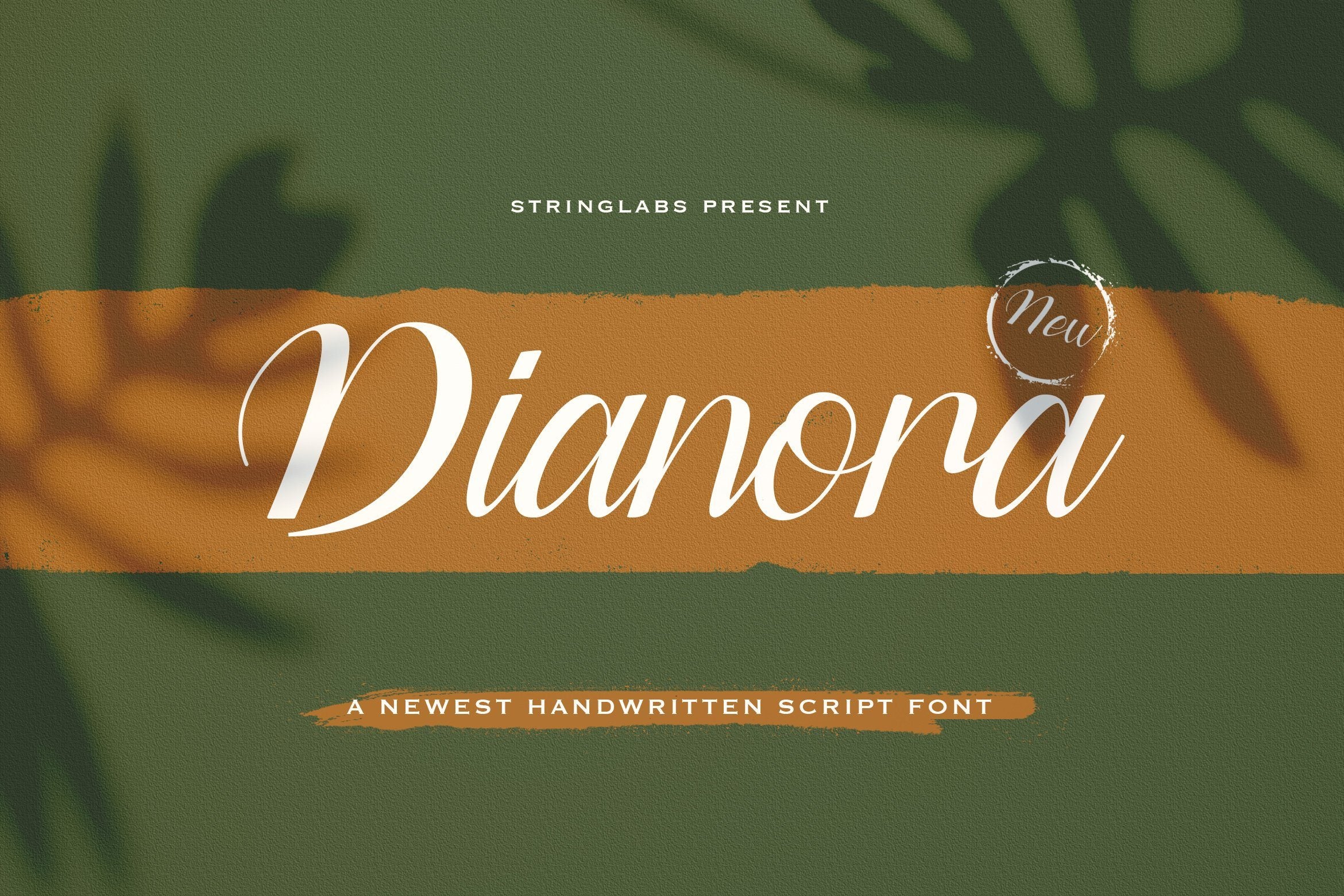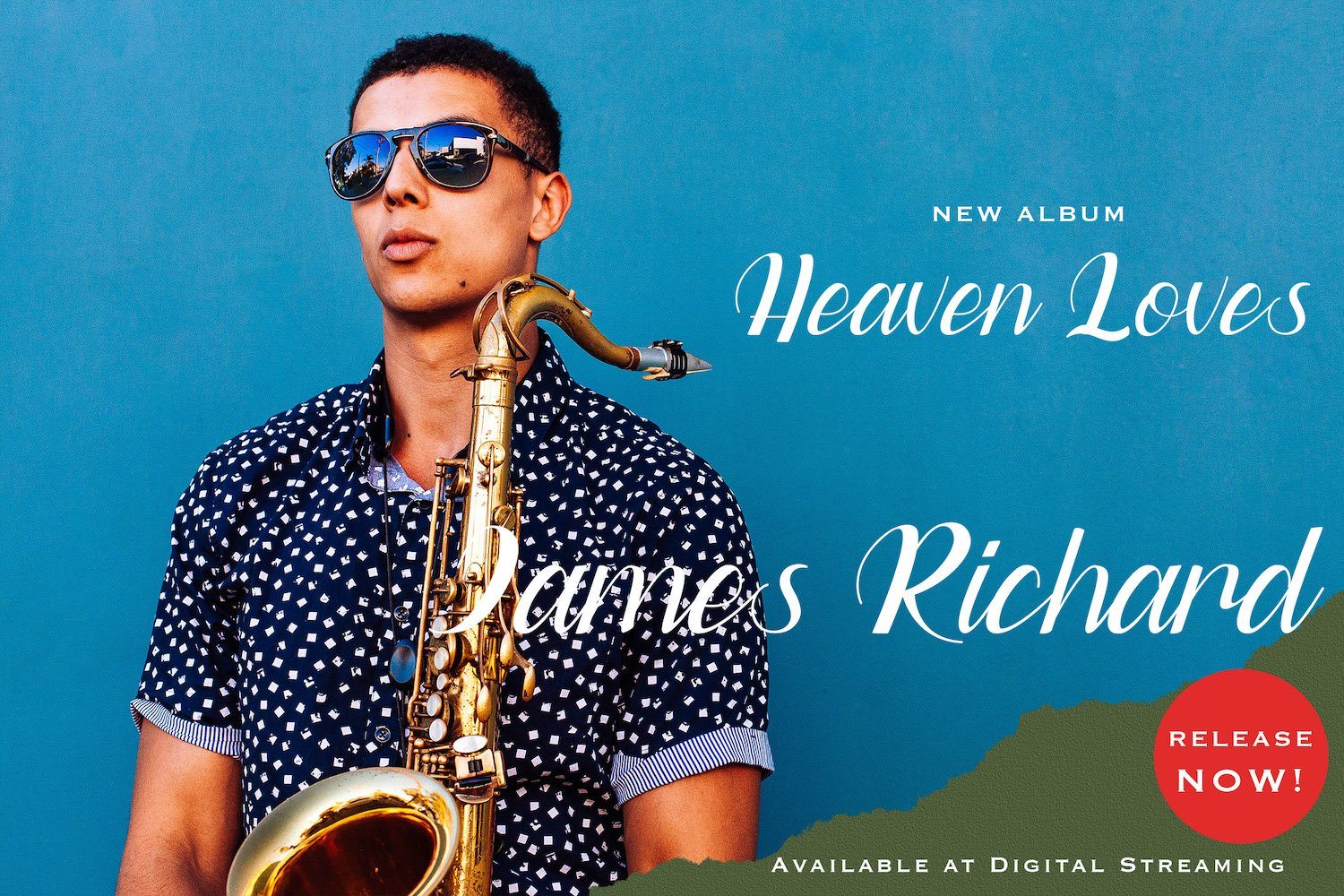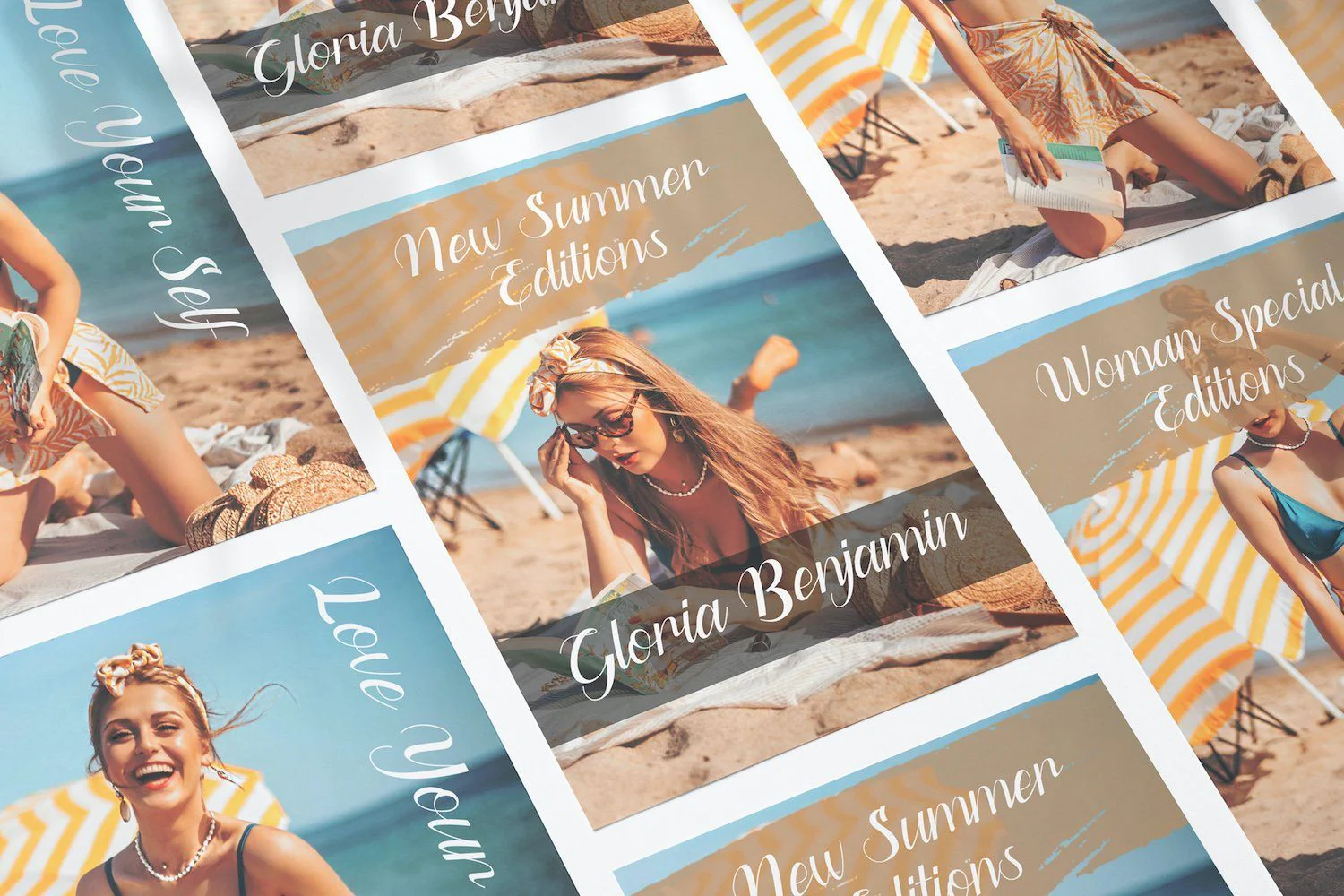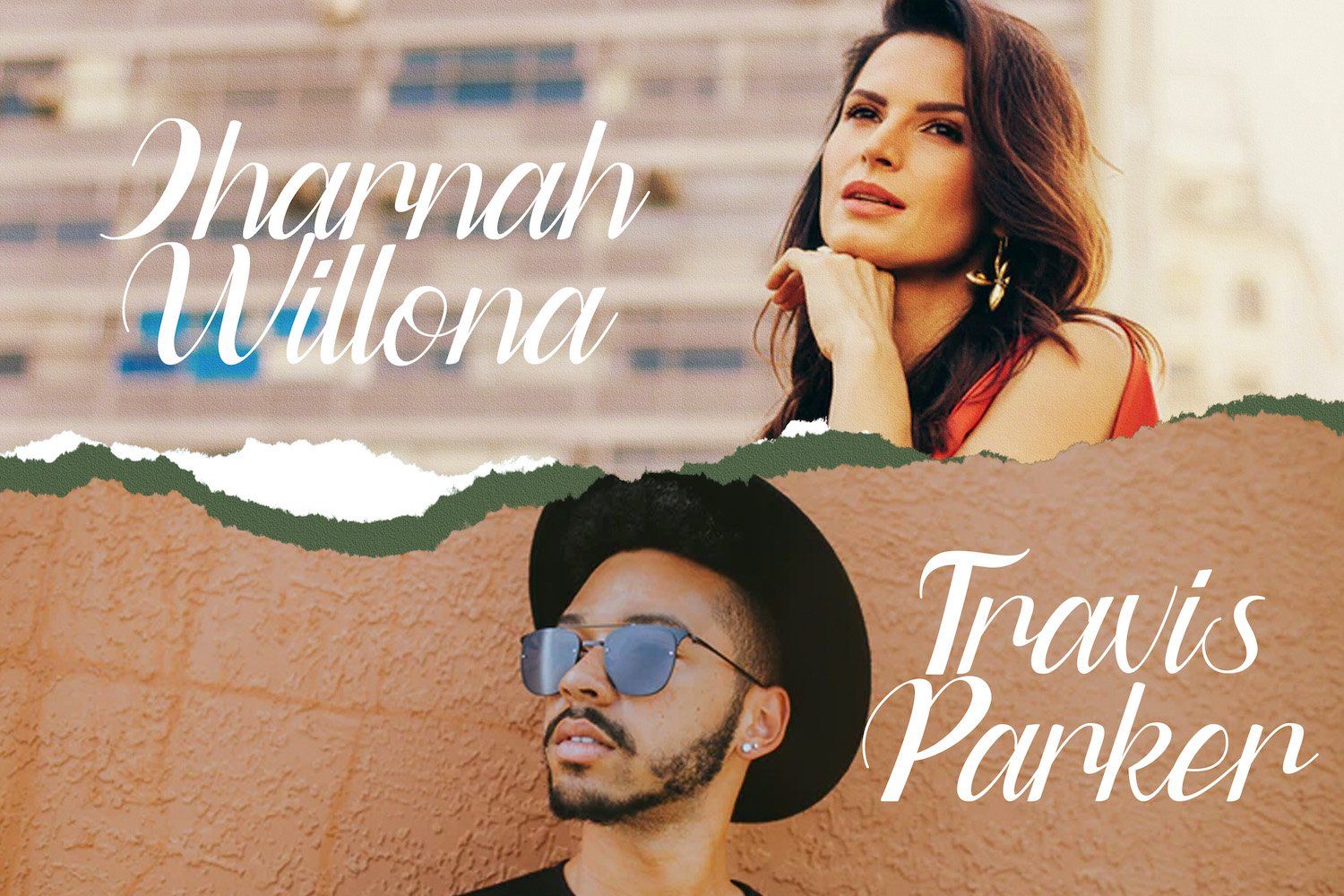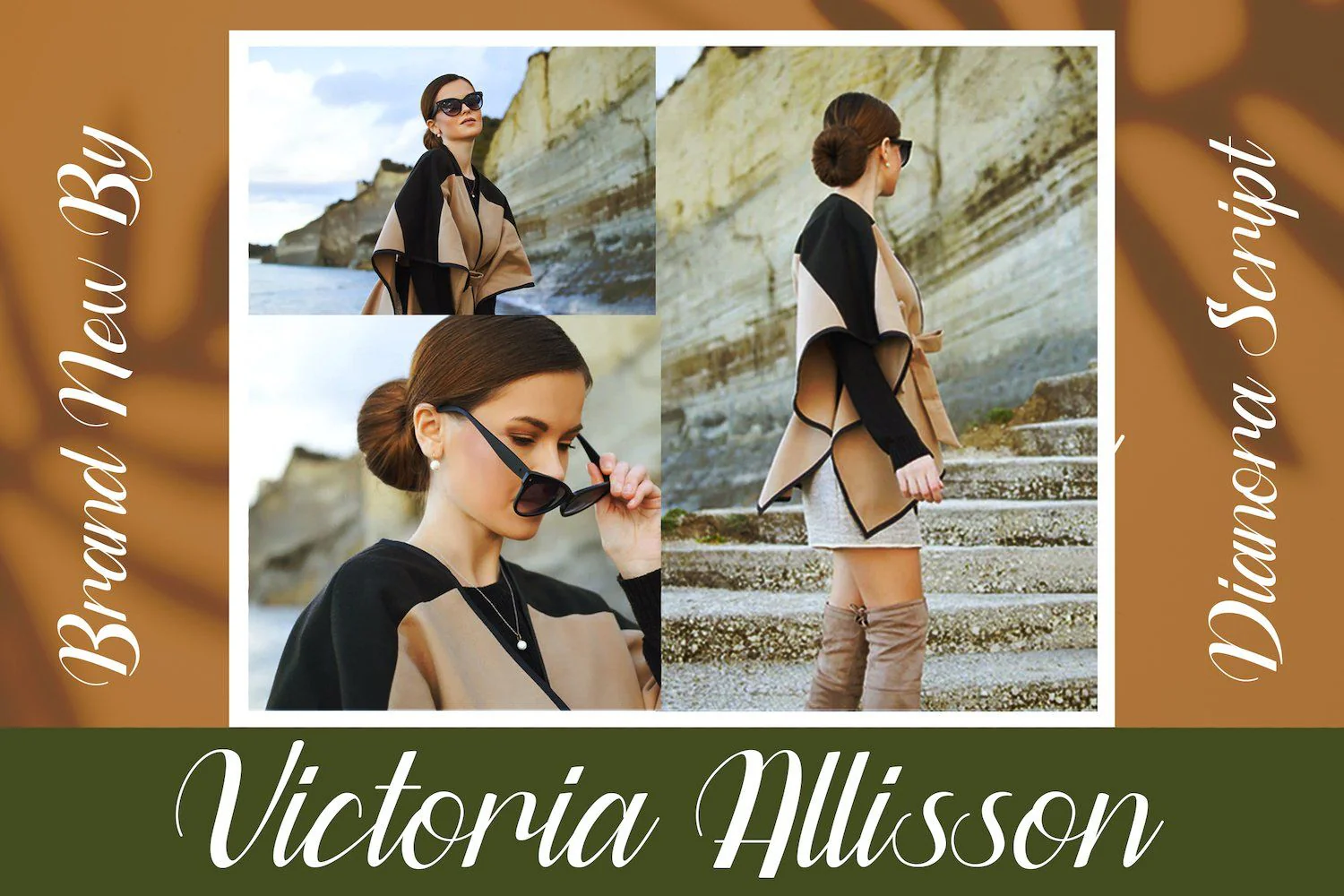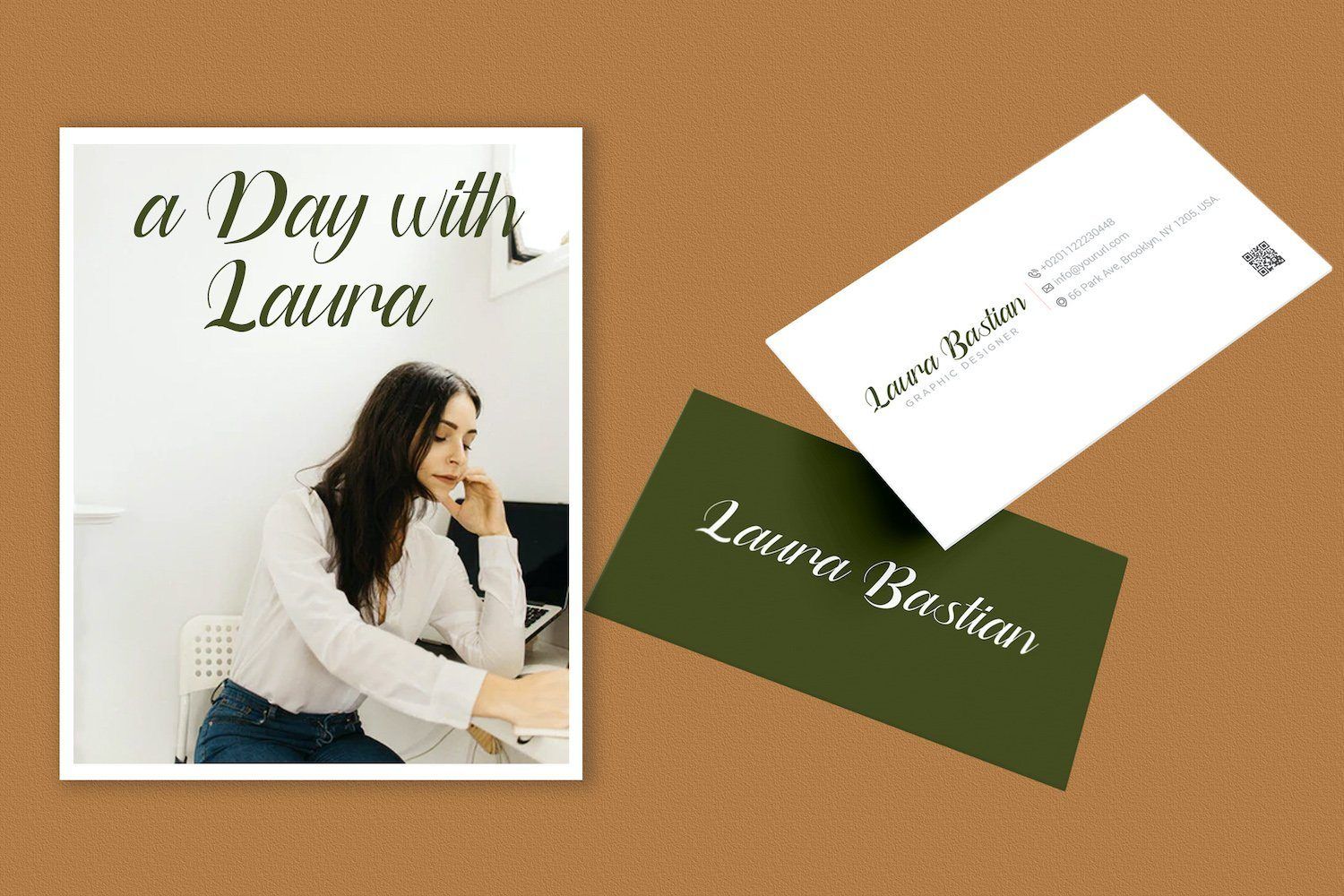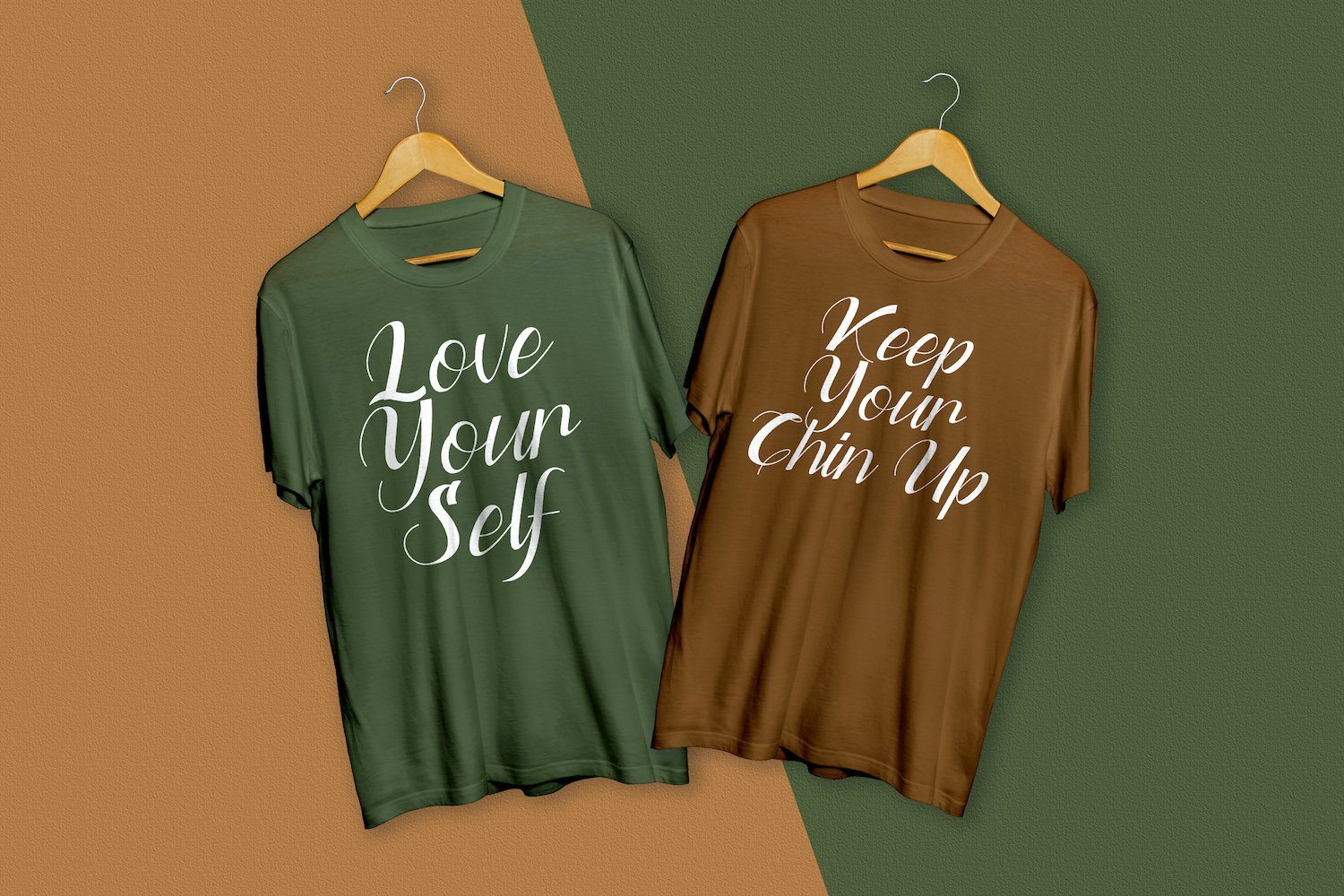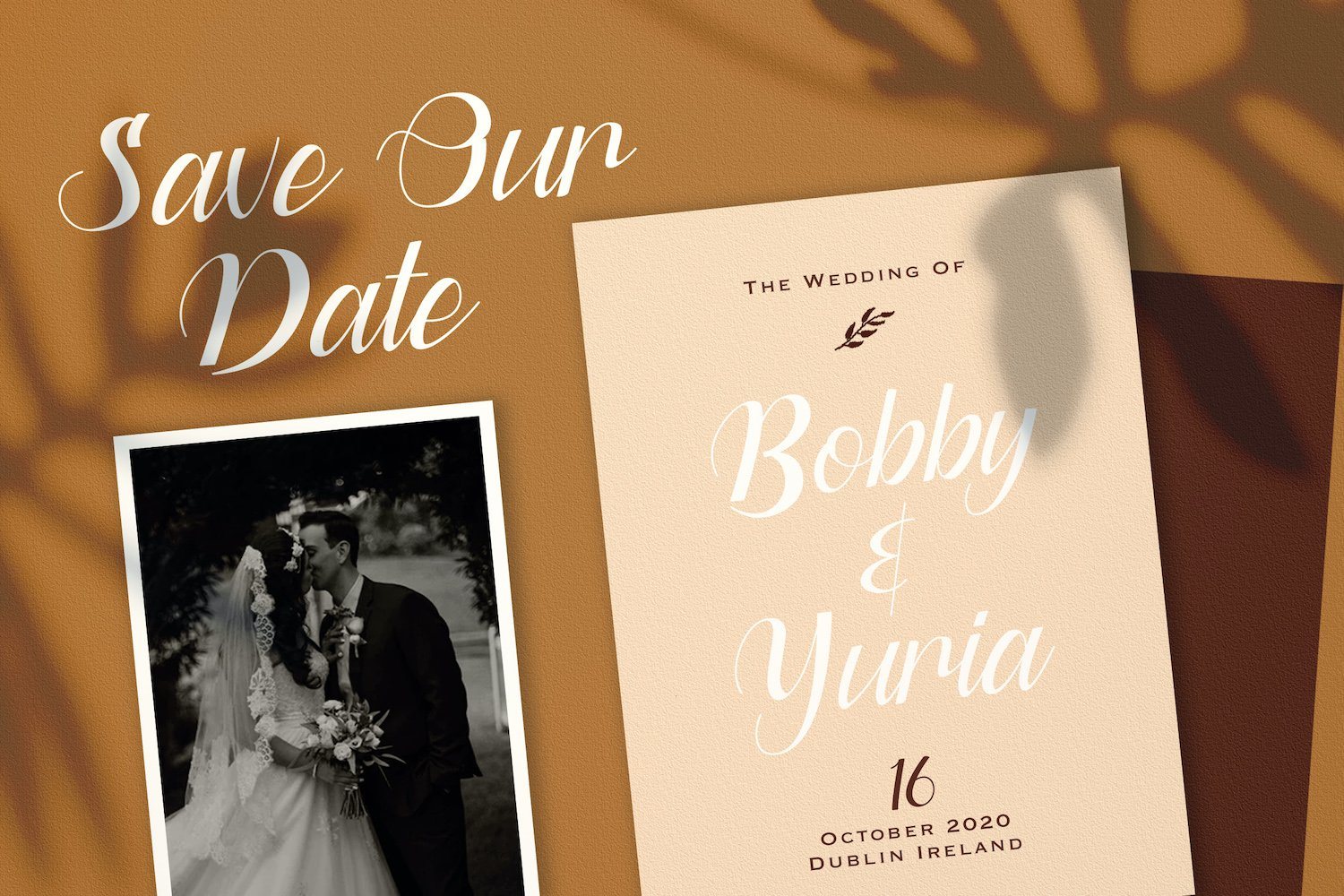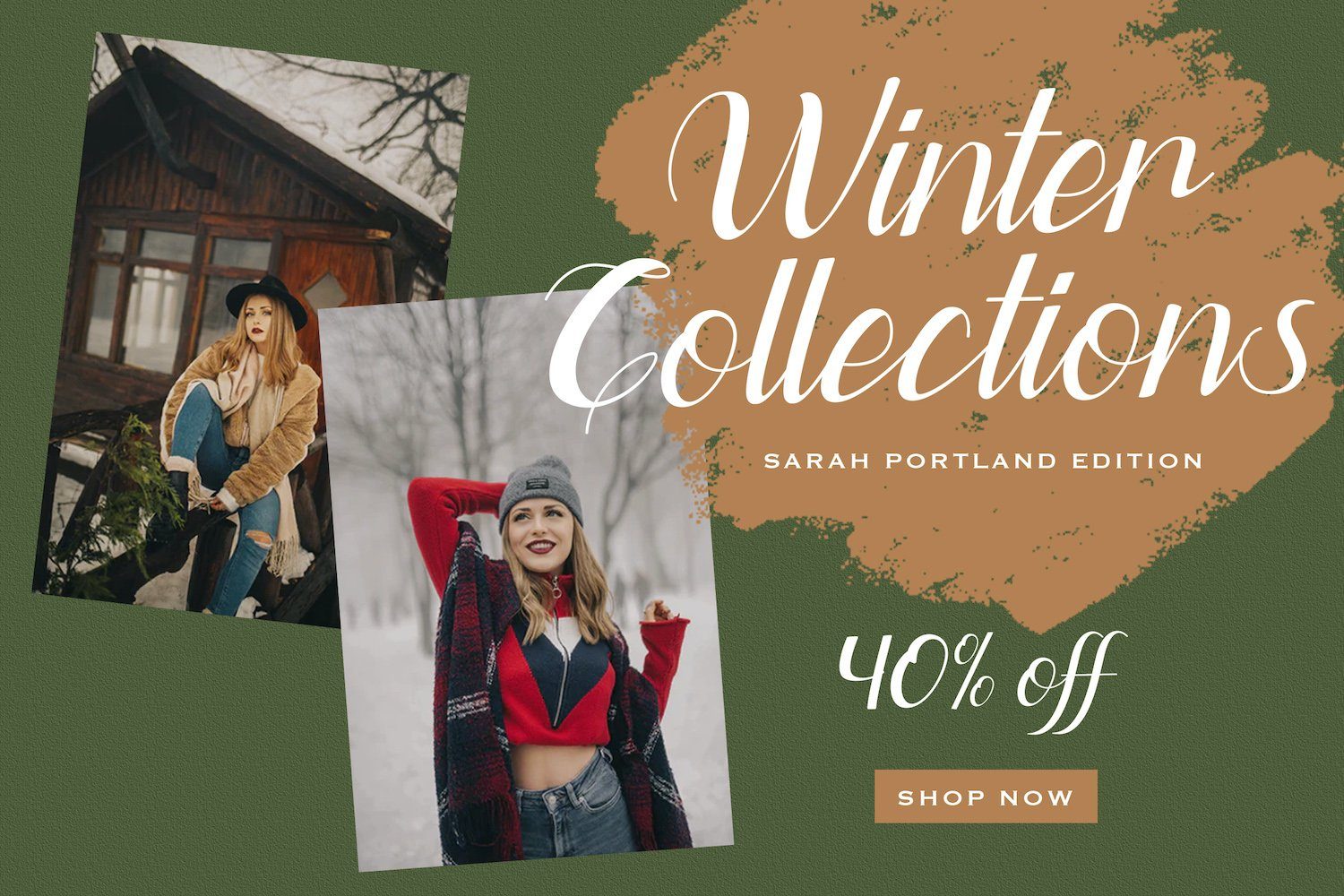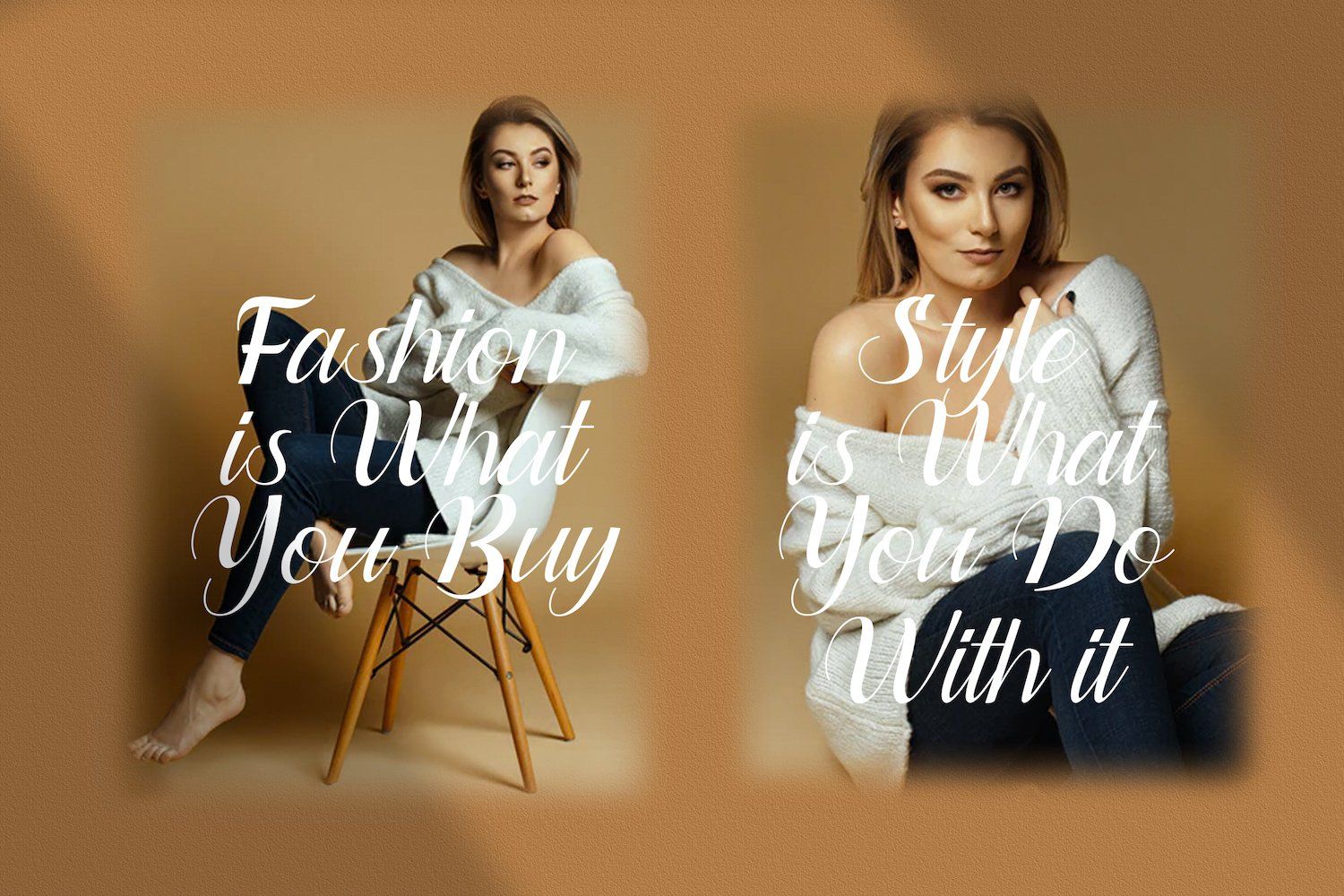
Dianora - Handwritten Script Font
Introducing Dianora - Handwritten Script Font
Dianora is a Script Font with Lovely Handwritten Calligraphy Style. Dianora is an equally elegant and authentic script, full of love. Use it to add a romantic spark to any design project!.
Introducing Dianora - Handwritten Script Font
Dianora is a Script Font with Lovely Handwritten Calligraphy Style. Dianora is an equally elegant and authentic script, full of love. Use it to add a romantic spark to any design project!.